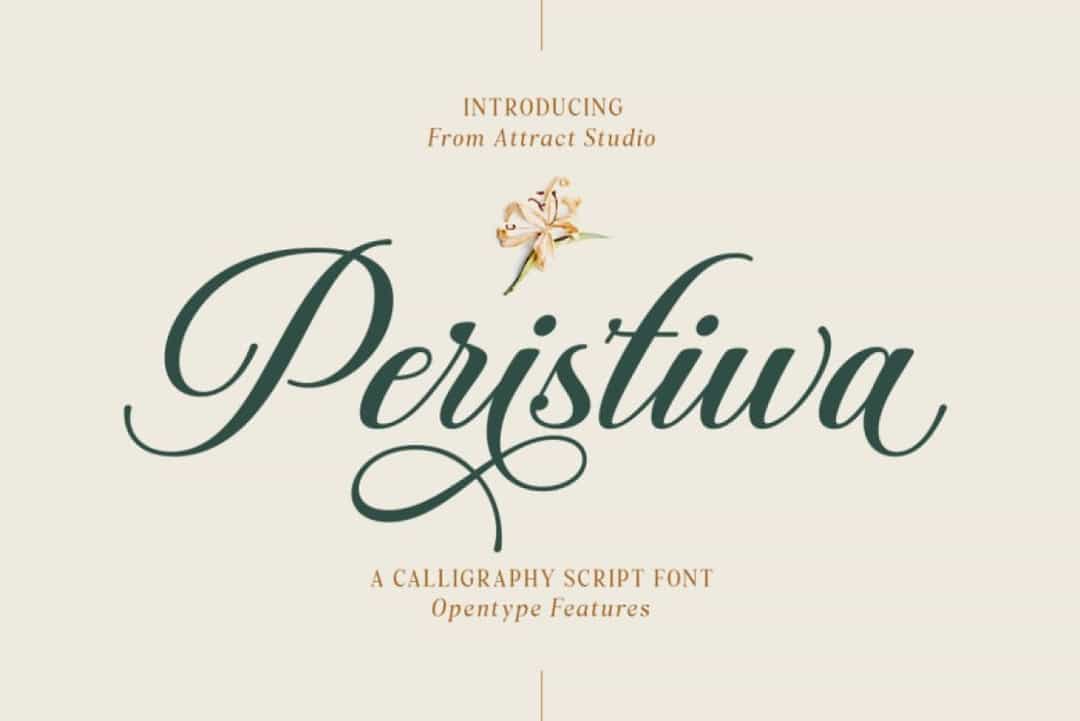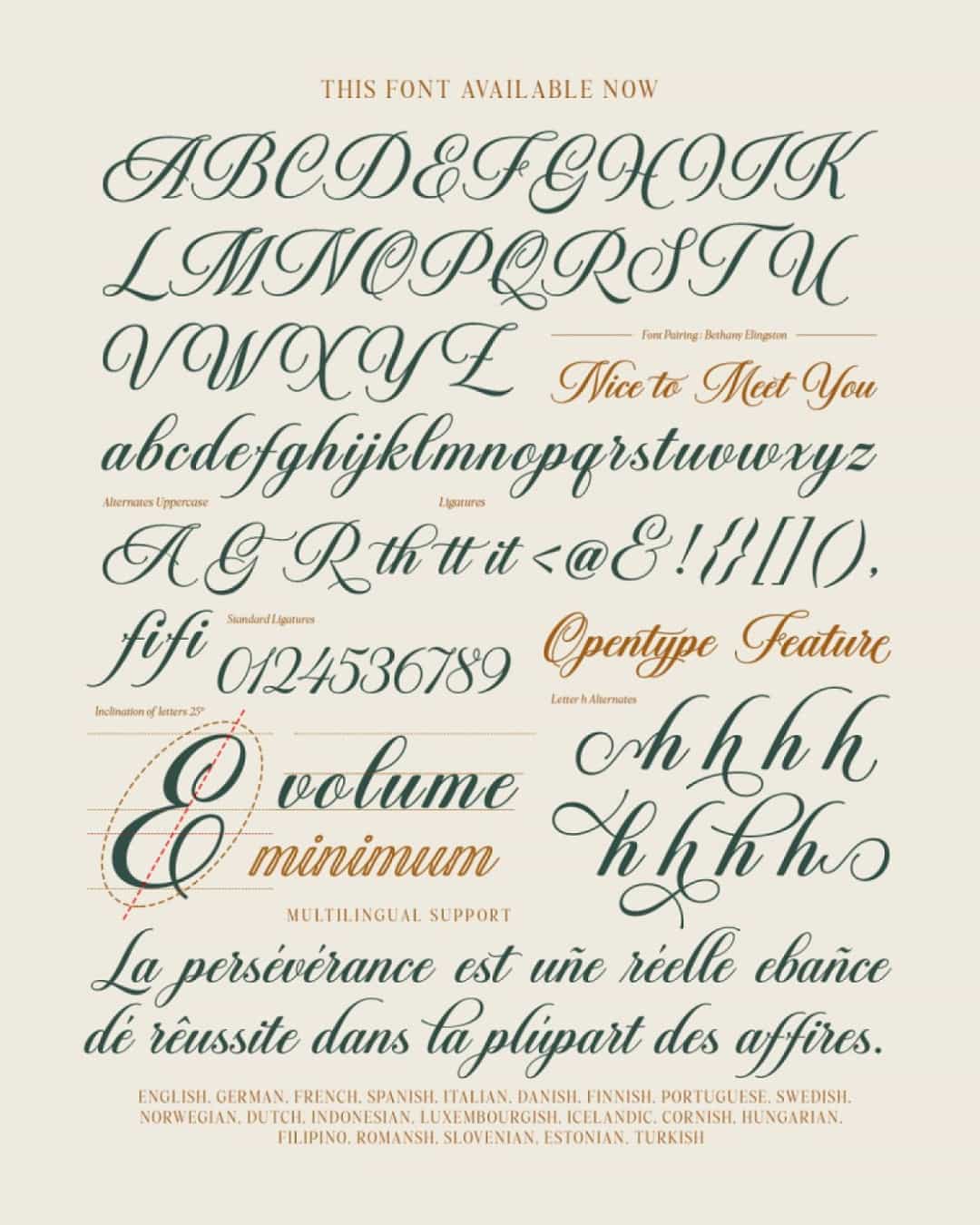
Peristiwa is an elegant vintage-inspired handwritten script font with plenty of alternate names and OpenType features that makes an ideal combination for wedding invitations, logos modern sites, cards for greetings or anything else imaginable! Perfectly handwritten right angle makes Peristiwa suitable for use on greeting cards as well as invitations with ease!